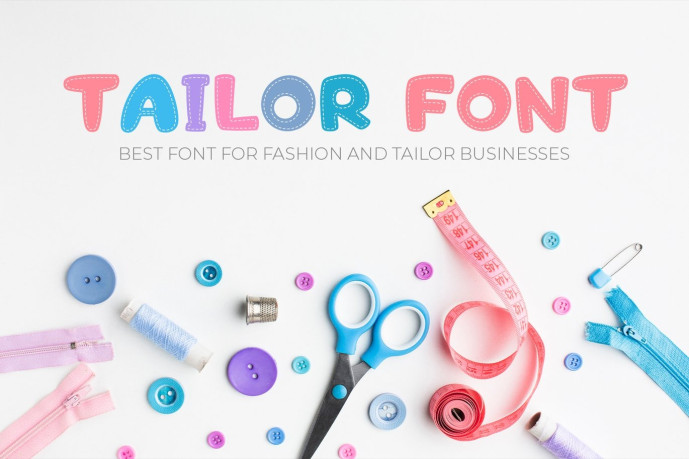
Tailor Font
Designer: OWPictures
Tailor Font is a playful stitched display typeface inspired by sewing, crafts, and handmade design aesthetics. Featuring soft rounded letters with decorative stitch details, this font is perfect for branding, logos, posters, invitations, packaging, social media graphics, presentations, and creative digital projects. Its friendly and colorful style makes it ideal for craft themes, DIY visuals, children’s designs, creative studios, and modern handmade branding. Tailor Font includes uppercase letters, numbers, and essential symbols, making it easy to use across a wide range of design applications while adding a warm, crafted feel to your typography.